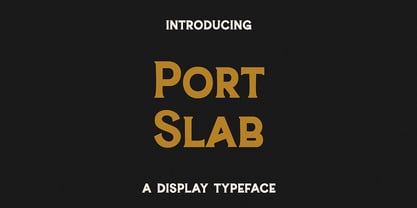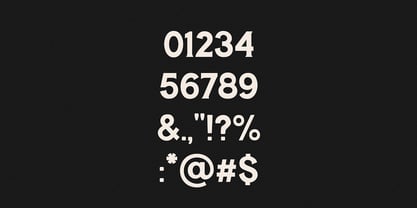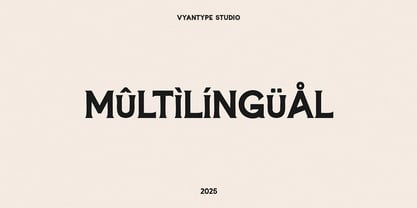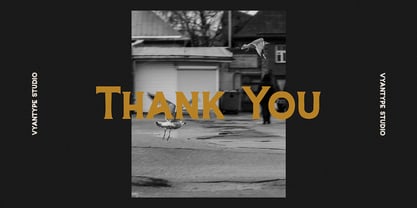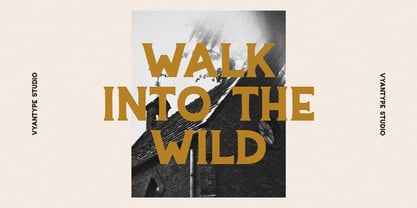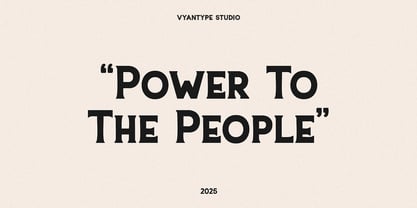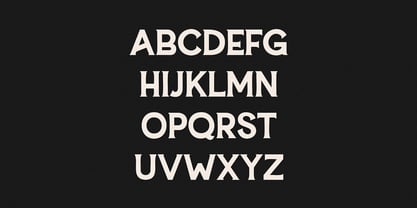
Portslab
por Vyantype Studio
La familia tipográfica Portslab fue diseñada por Hero Novyanto y publicada por Vyantype Studio. Portslab contiene 2 estilos y opciones de paquete familiar. Más información sobre esta familia
A vintage slab font that embodies classic design, allowing designers to seamlessly integrate it into illustrations or logos, particularly those with vintage or classic aesthetics. This typeface exudes bold character, perfectly capturing the essence of timeless design while remaining relevant for contemporary applications. With attractive multilingual support and a diverse character set, its versatility makes it ideal for branding, logo creation, and illustration projects.
Diseñadores: Hero Novyanto
Fundición: Vyantype Studio